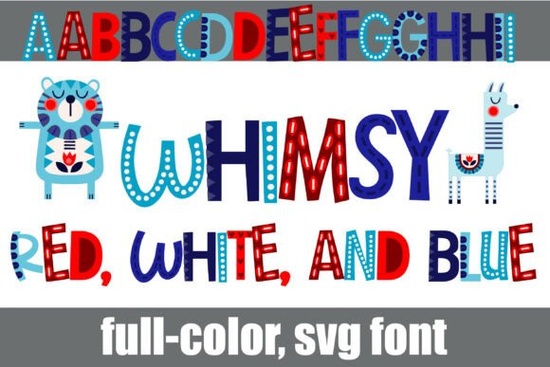
If you are preparing materials for a national holiday celebration or designing storybooks for kids, you know how important typography is to setting the mood. Standard lettering often feels too flat for handmade projects. You need something with character, texture, and that distinct handcrafted appeal. That is where Whimsy Red, White, and Blue comes in handy for bringing a Scandinavian folk art touch to your layouts.
This display typeface moves beyond simple shapes. It features blocky, hand-cut letterforms decorated with festive patterns like delicate rows of white dots, stitched heart borders, geometric triangles, and rustic checkerboards. The color palette relies on crimson red, soft slate, and rich indigo blue to capture an artisan spirit. If you want to see the vector layers up close, Whimsy Red, White, and Blue offers high-quality files suitable for various creative software programs.
Why Choose Folk Art Style Typography?
Pick fonts that feel personal. Modern sans-serifs work well for tech sites, but they lack warmth for greeting cards or home decor. Illustrative fonts tell a story before anyone even reads the words. This specific set brings a cozy atmosphere, making it perfect for items that need to feel gentle yet eye-catching. The intricate details stand out against clean backgrounds while still remaining legible from a distance.
Because it is rendered in full color, it serves as an instant centerpiece for whimsical designs. You do not need to add extra clipart because the letters themselves act as the decoration. Think about nursery wall art where parents want a message that isn't boring block letters, or boutique packaging that needs to shout quality without being loud. The visual texture adds value to the final print immediately.
Best Projects for Display Fonts
Knowing what to build with these glyphs saves time. Since it is an illustrated display font, it shines best on larger headlines rather than body text. Try using it for children’s holiday book covers where the story is light and playful. Parents love visuals that resemble a storybook opening page, and this typeface delivers that charm effectively.
Seasonal boutique packaging is another strong candidate. Imagine gift boxes tied with twine featuring a label that uses the checkerboard pattern integrated into the word. Family picnic greeting cards benefit from the warm tones as well. The stitching motif reminds people of quilts and blankets, which triggers positive emotions associated with comfort and family time.
If you enjoy digital cutting machines like Cricut or Silhouette, this design works particularly well there. You can cut the colored outlines directly onto wood signs or vinyl stickers for car windows. Just make sure your machine settings handle the thin lines in the dotted patterns correctly. Layering might be necessary depending on the complexity of the background image you choose.
Tips for Mixing Textures and Colors
Balance is key when designing with colored fonts. Since the letterforms already contain multiple colors and patterns, keep the surrounding background neutral. A plain off-white paper works better than a busy photograph that competes with the white dot accents. If you use a texture, make sure it is subtle, like a watercolor wash or a linen scan, so the focus remains on the typography.